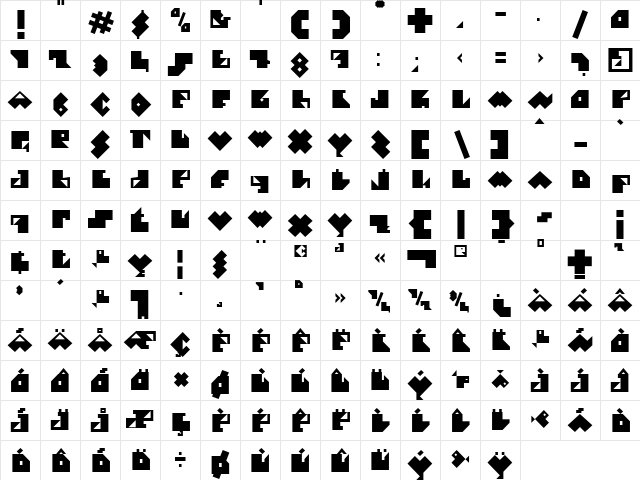
e-Pececito Regular
Foundry: deFharo
Designer: deFharo
Design Context for e-Pececito
e-Pececito is a composed and adaptable typeface that performs quietly and consistently across a wide range of design contexts.